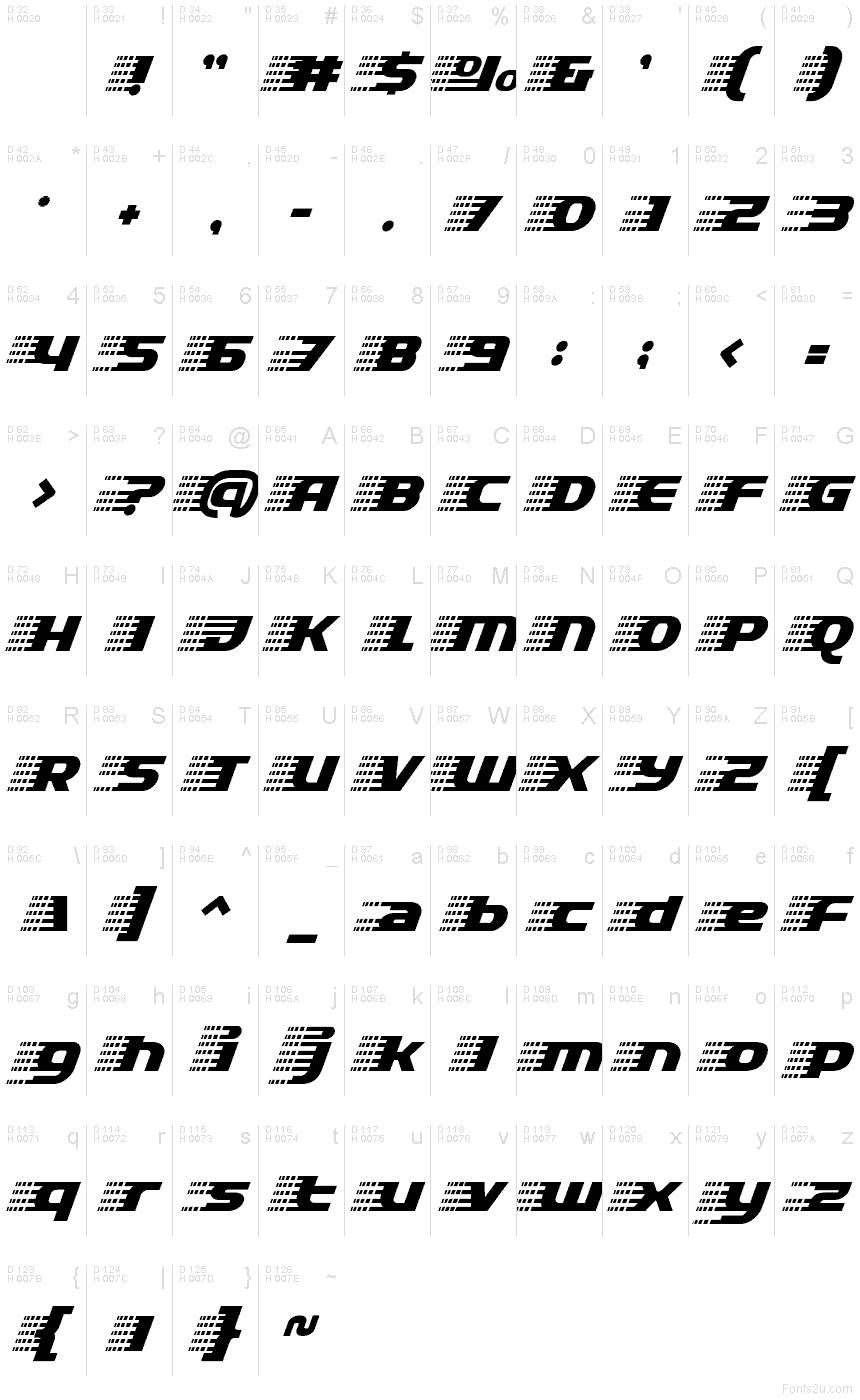
Rapido Racers Nine
Rapido Racers Nine font by PutraCetol Studio is a free techno display font that captures an expressive racing theme with its geometric elements and futuristic feel. An expanded bold style gives it its energetic design associated most prominently with digital influences and sporty appearance. Although it’s best used at large point sizes, this typeface can also deliver heavily impacted smaller displays.
Use Rapido Racers Nine for creating car themes, race events signs, motorsport posters, video game interfaces, cycling championship ads, banners for sports magazines and newspapers, football match flyers, energetic branding projects including visual identities for thrilling attractions or places etc.